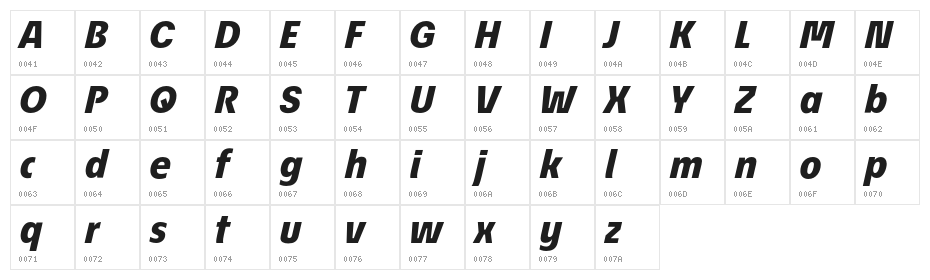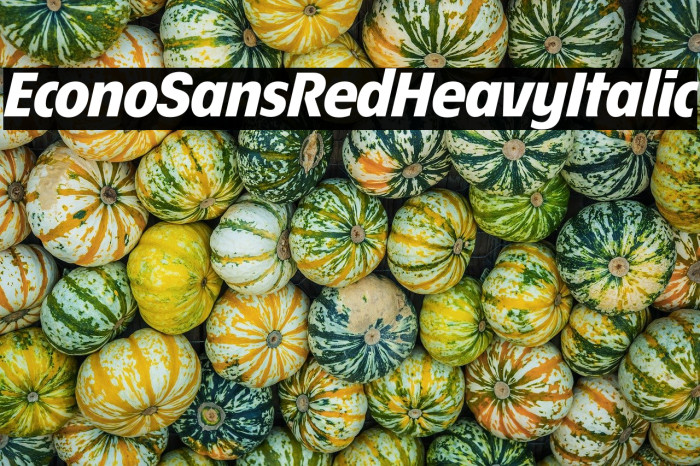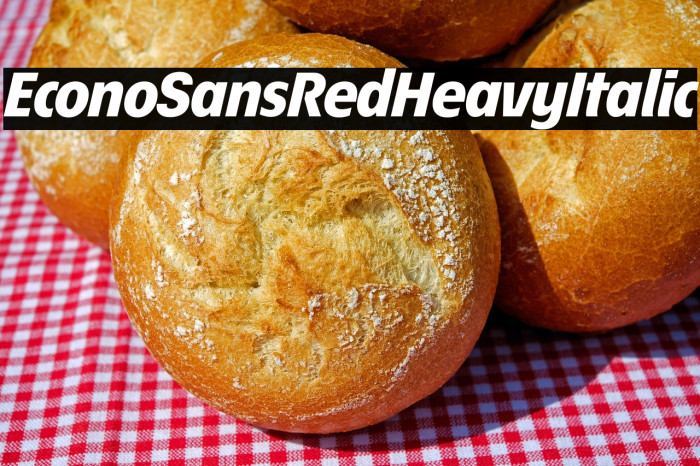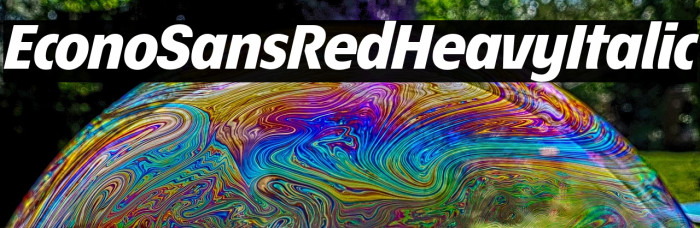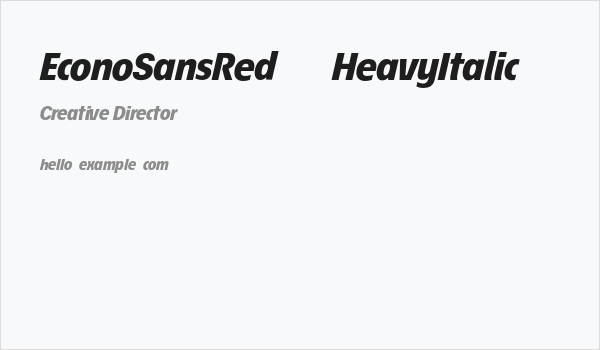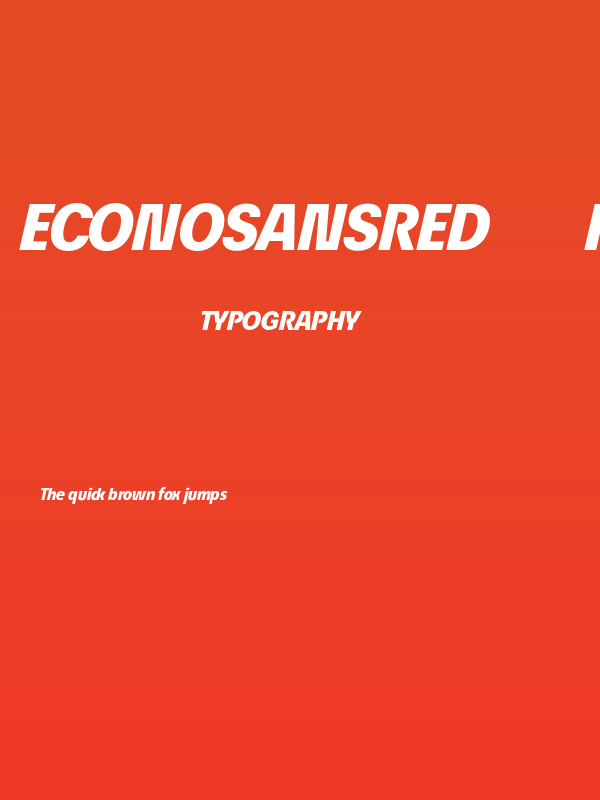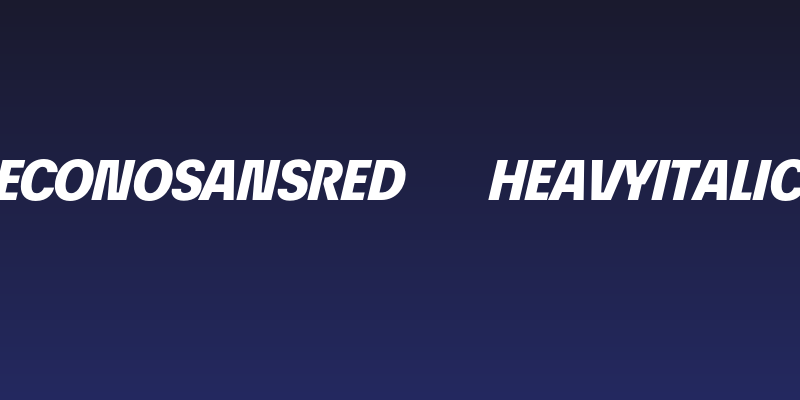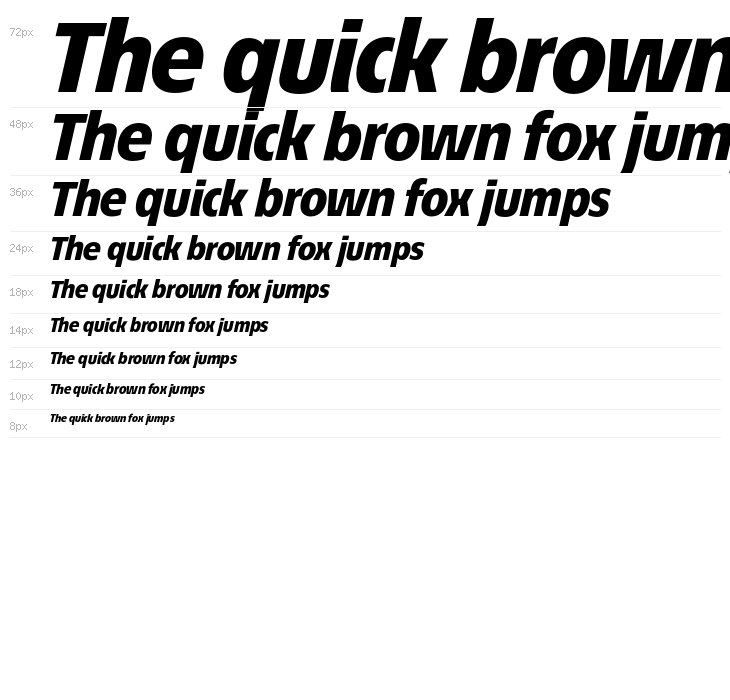
EconoSansRed-86HeavyItalic Font
EconoSansRed-86HeavyItalic Description
This font exhibits a bold and dynamic presence with its heavy weight and italicized style. The characters are robust and convey a sense of strength and urgency. The italic slant adds a forward-moving energy, making it suitable for impactful headlines and attention-grabbing text. The uppercase and lowercase letters maintain a consistent width, ensuring readability while emphasizing the boldness. The font's design is modern, with clean lines and a slightly condensed appearance, which enhances its ability to stand out in various design contexts.
Proposed ProjectsIdeal for advertising campaigns, branding, posters, and headlines that require a strong visual impact.